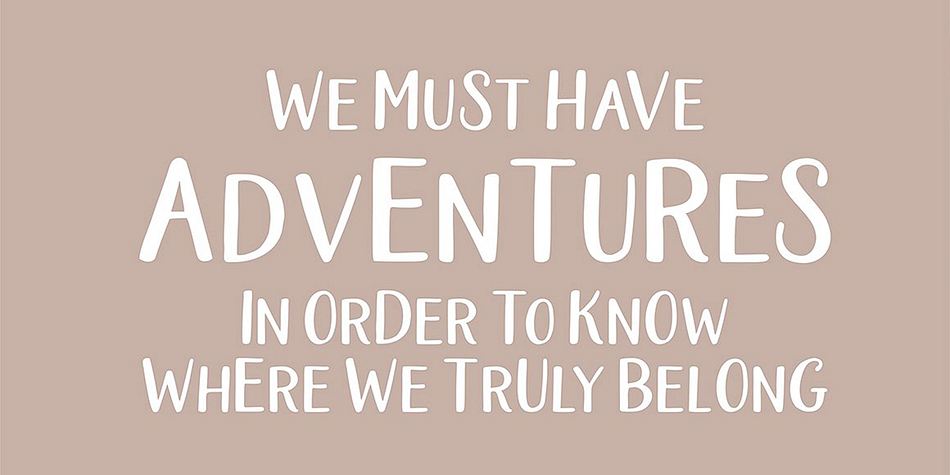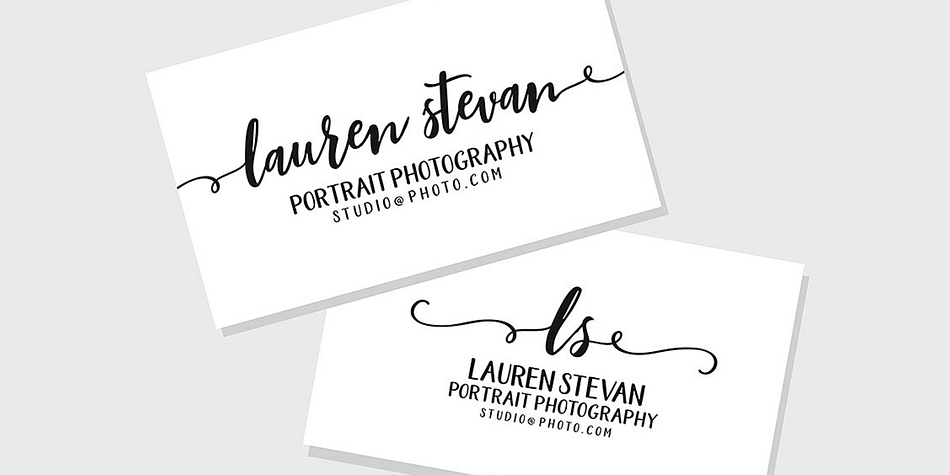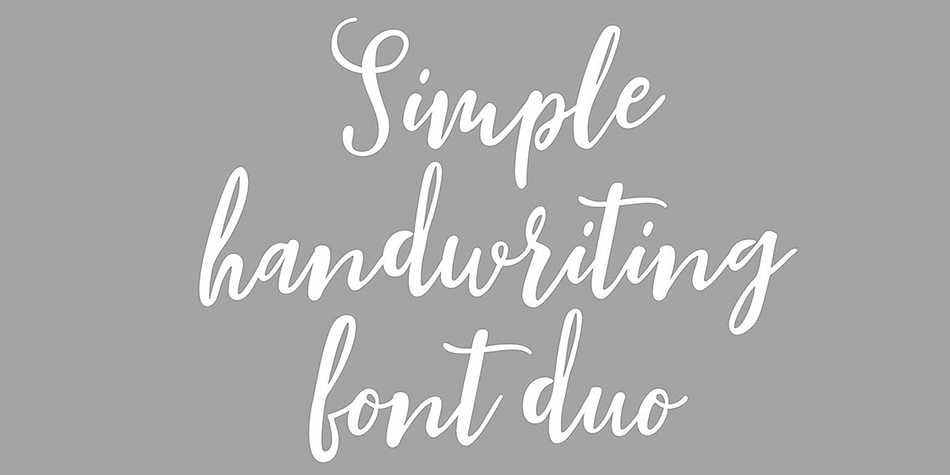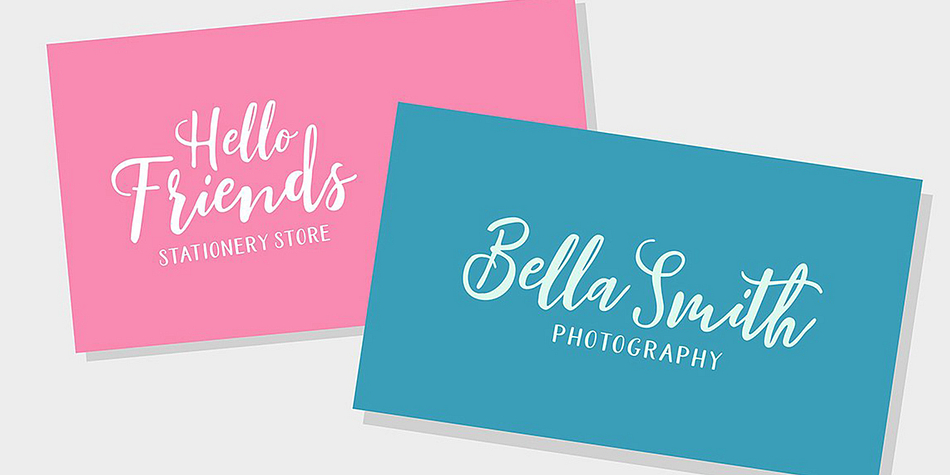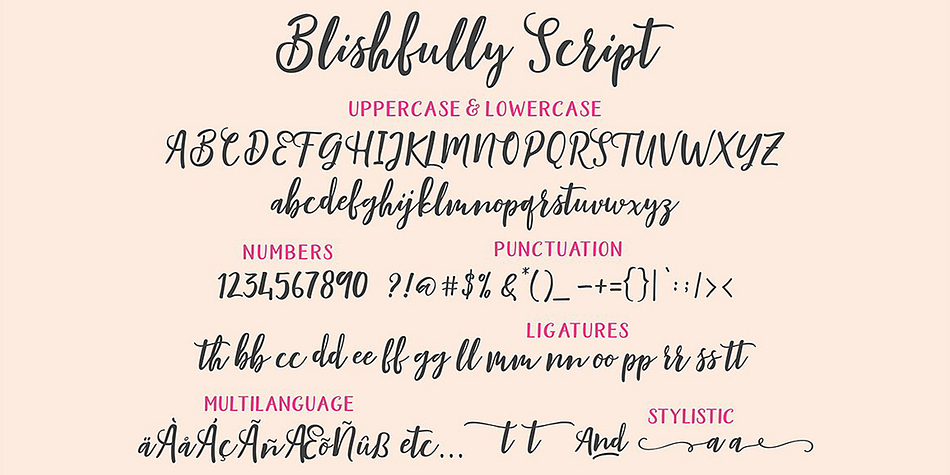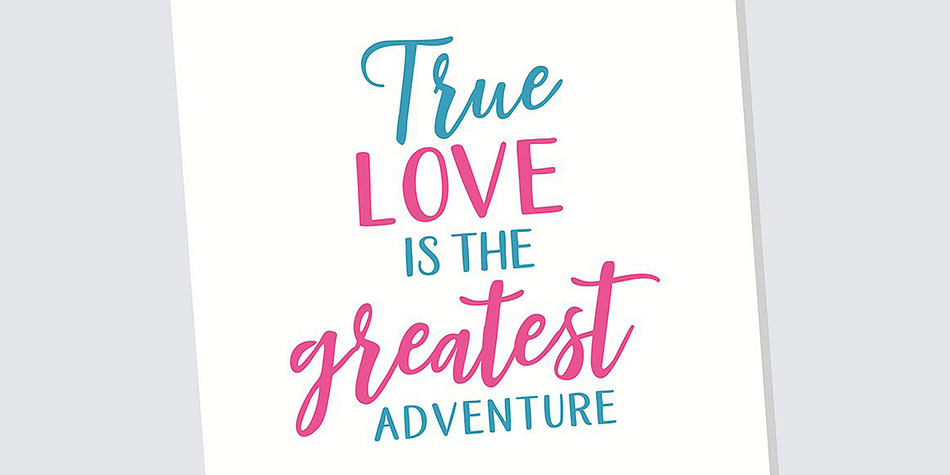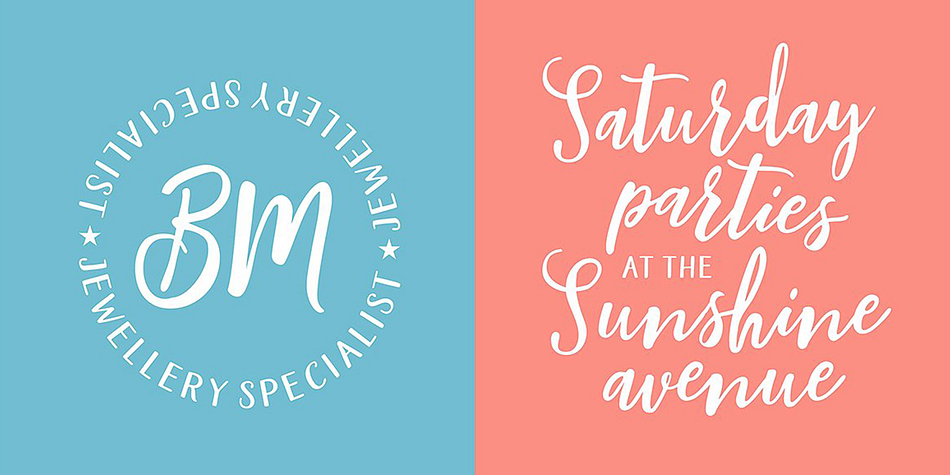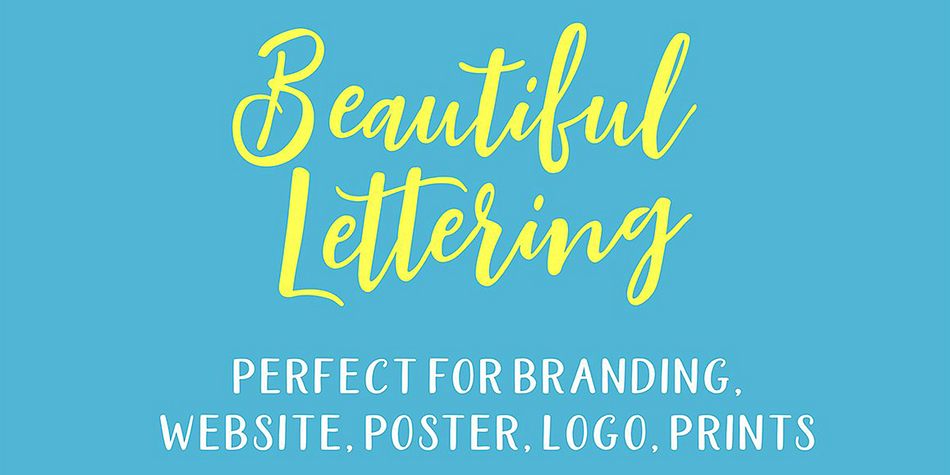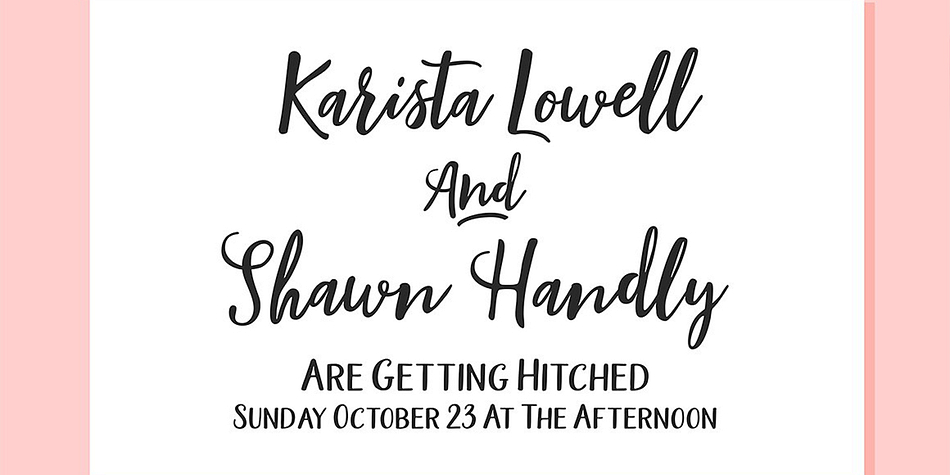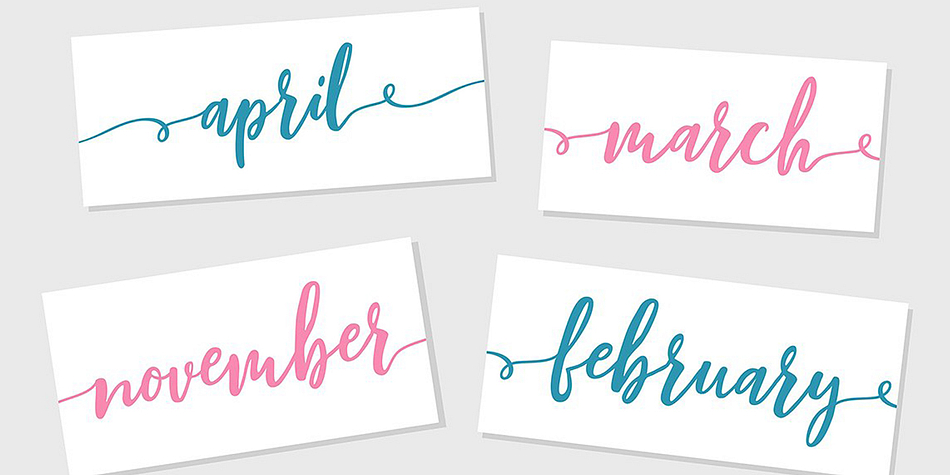
Blishfully is a hand drawn and modern calligraphy font family. This typeface has two styles and was published by Area Type Studio.
Blishfully Font Duo is a modern calligraphy font, with characters dance along the baseline and elegant touch. Opentype features with stylistic alternates, ligatures and multiple language support.